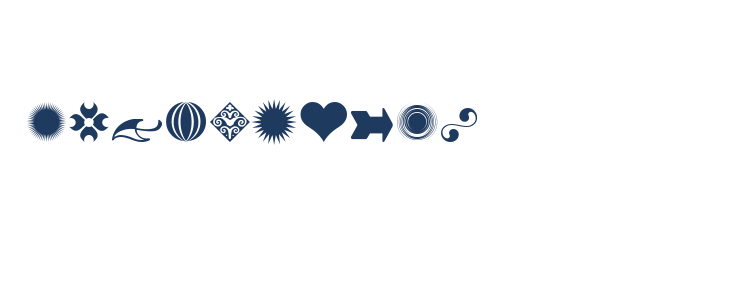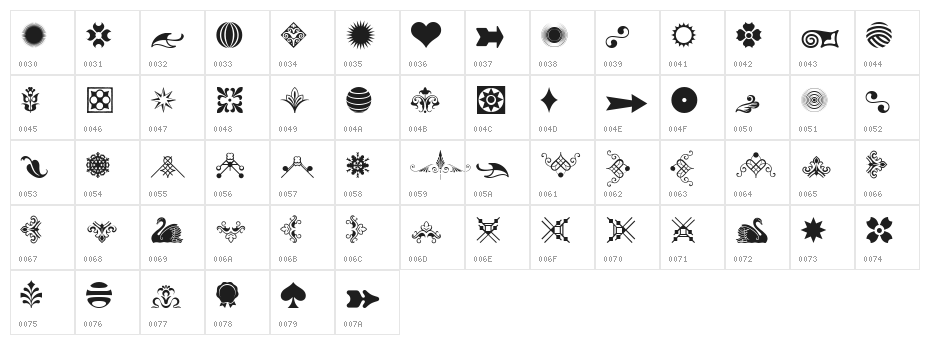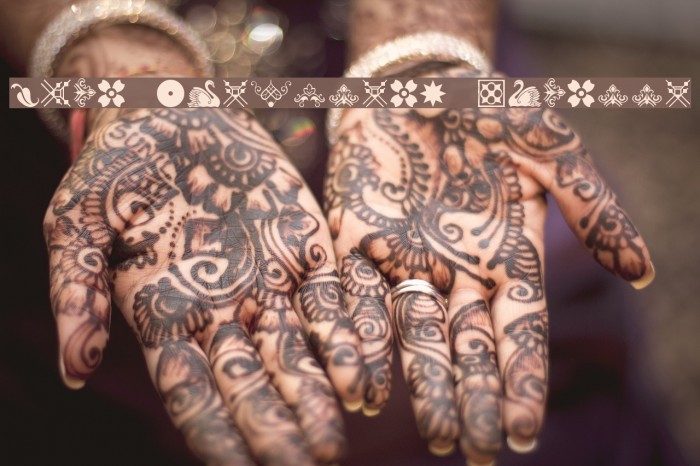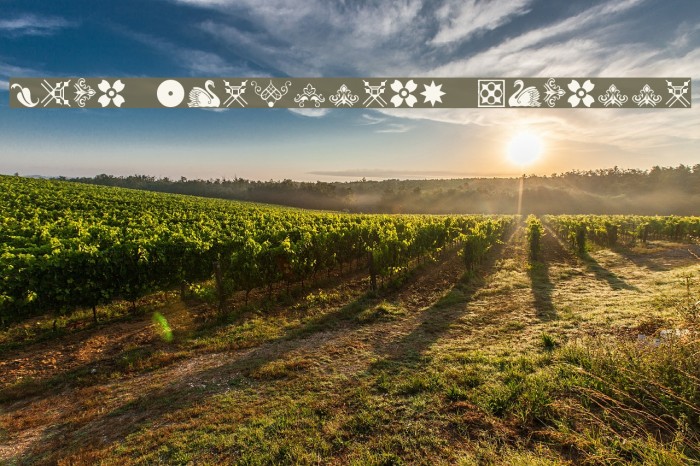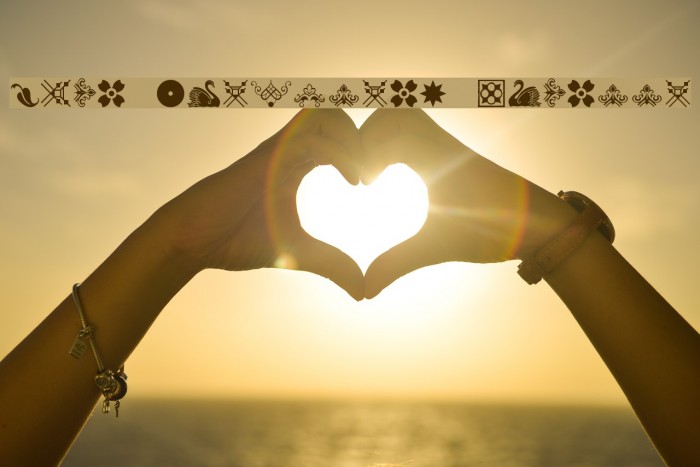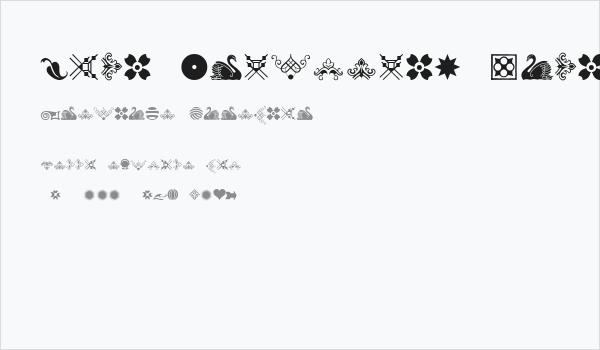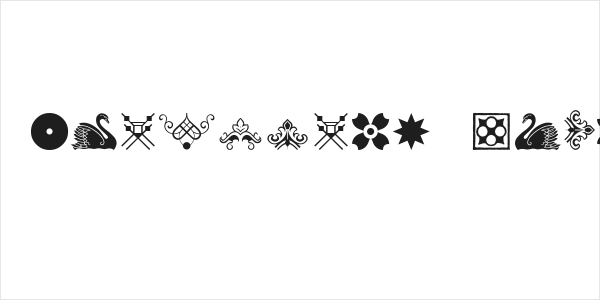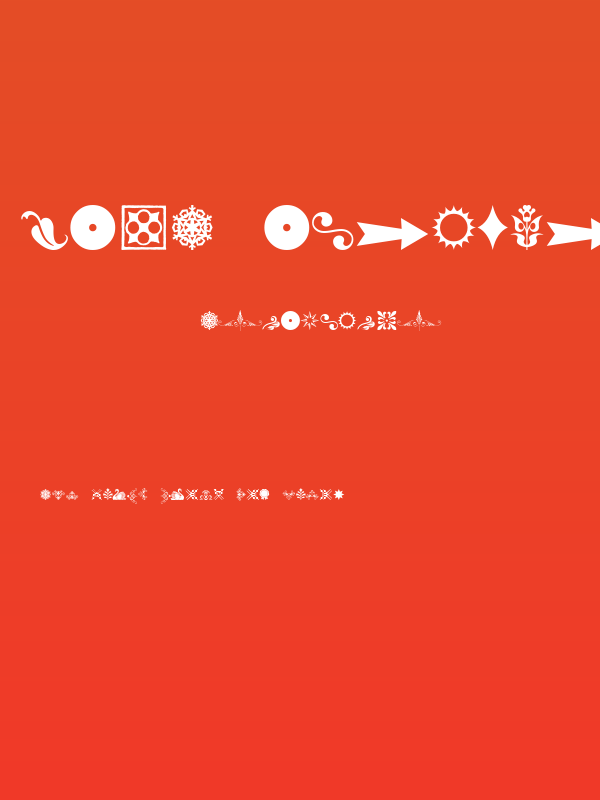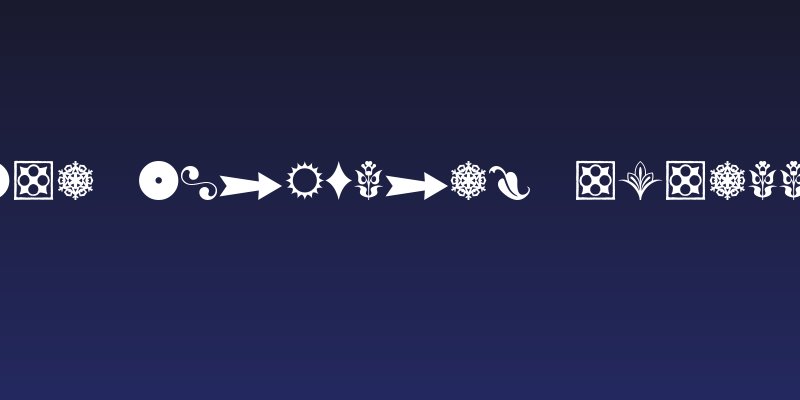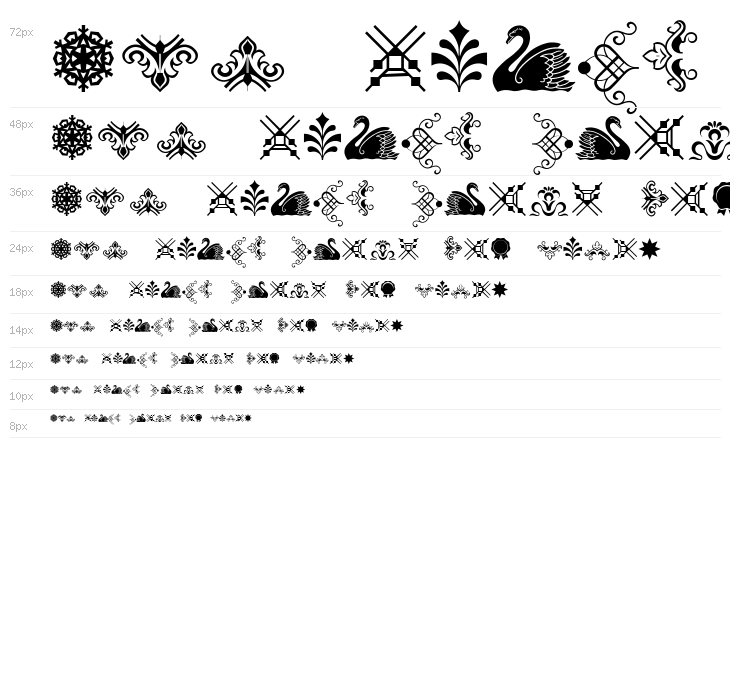
Soft Ornaments Fifteen Font
Soft Ornaments Fifteen Description
A collection of decorative glyphs and ornamental symbols featuring floral, geometric, arrow, heart, spade, and swirl motifs. The designs are bold, intricate, and suitable for embellishing documents or creative projects.
Overall StyleDecorative, Vintage
Use CaseBorders, Dividers, Decorative accents, Logos
Proposed ProjectsInvitations, certificates, borders, dividers, scrapbooking, branding accents, decorative headings.